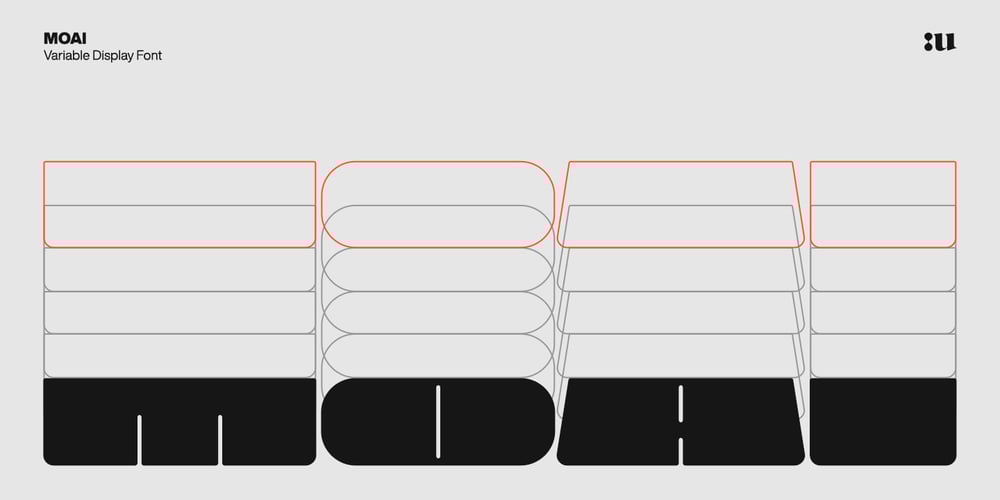
Moai Variable Font Family was designed by Nicola Manzari and published by Unio Creative Solutions. Moai Variable contains 1 styles and family package options. A neo-brutalist variable typeface conceived with flexible proportions and a singular heavy weight, including the oblique. Useful for any quirky display uses.Designed with extra-wide contrasting shapes, as a result of an extreme simplification of traditional typographic letterforms, “Moai” has a variable width that adapts to your needs, pushing for maximum readability.It’s perfect for logos, headlines, posters, art projects, social media, visual identity, corporate image, film posters, music cover art, and books. Specifications:- Files included: Moai Variable including obliques- Multi-language support (Central, Eastern, Western European languages)- OpenType FeaturesThanks for viewing, Unio.